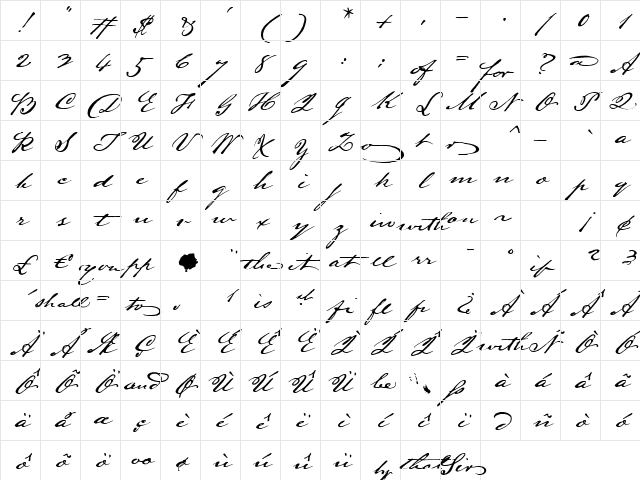
LamarPen Regular Free Font
LamarPen Regular
Design Context for LamarPen
LamarPen is a composed and adaptable typeface that performs quietly and consistently across a wide range of design contexts.